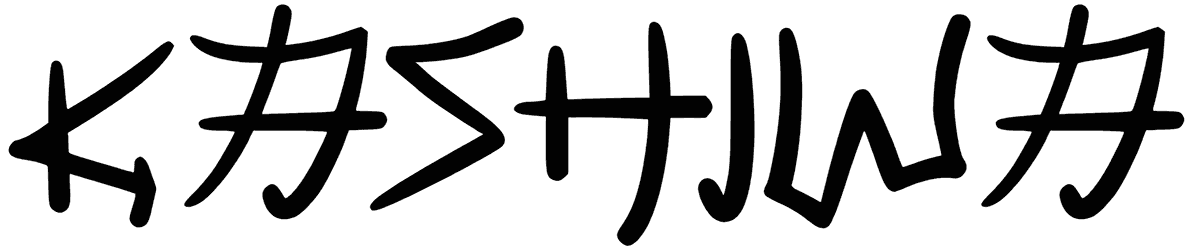
Provide a distinct and mesmerizing visual for your Asian layout with this Japanese font and amaze your observers. Applying this ninja font will make your words illegible, but this feature is also its capturing aspect. There is no support for lowercase letters, but the Kapital Kanji font will be a cool pickup for a movie promotion layout, a hoodie design, or so forth.